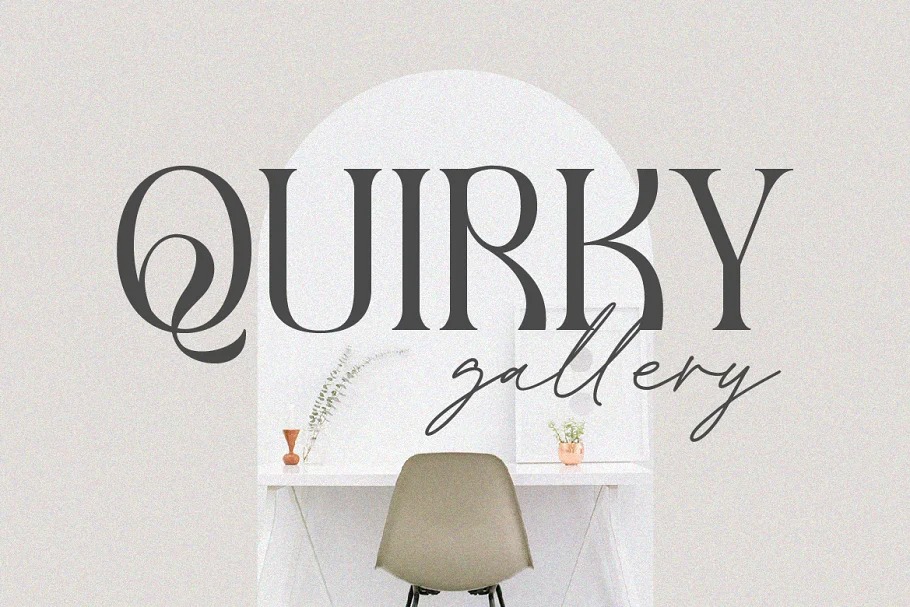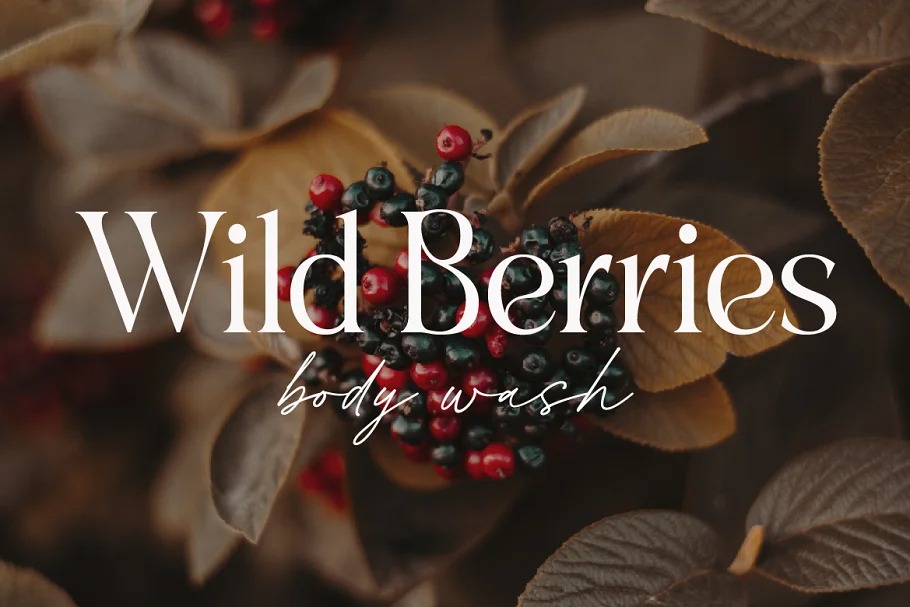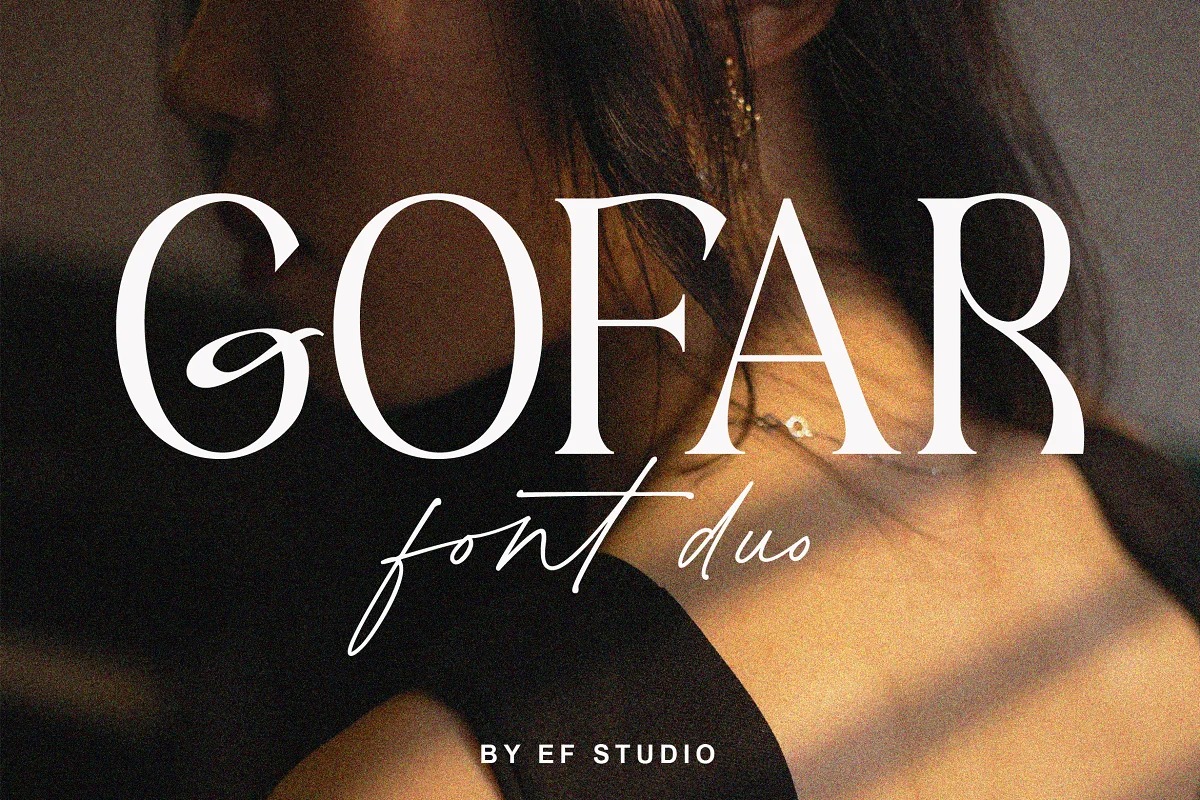
Gofar Font Duo
This is a stylish vintage font duo vibe with a touch of modernity. You will also find Gofar Script with ligatures that beautiful to pair with. This font perfect for every project like branding, editorial design, book, logo, website, social media, and any project you like.